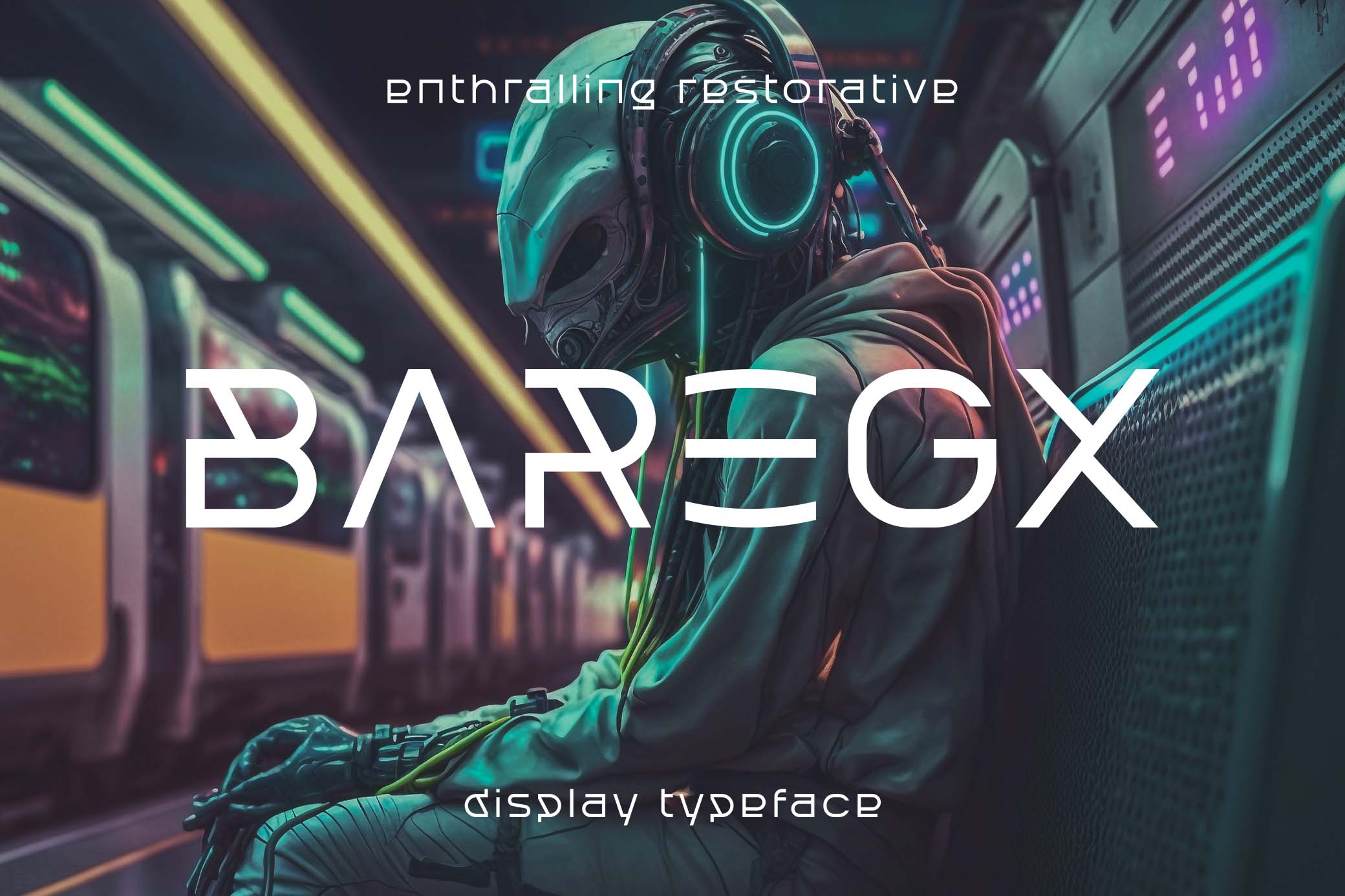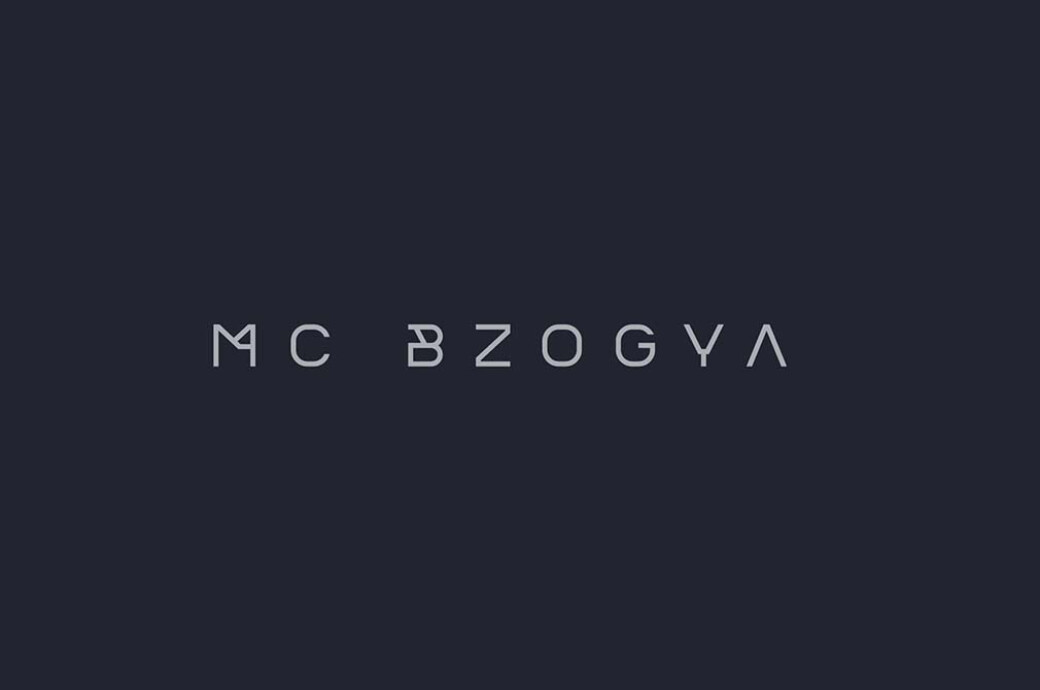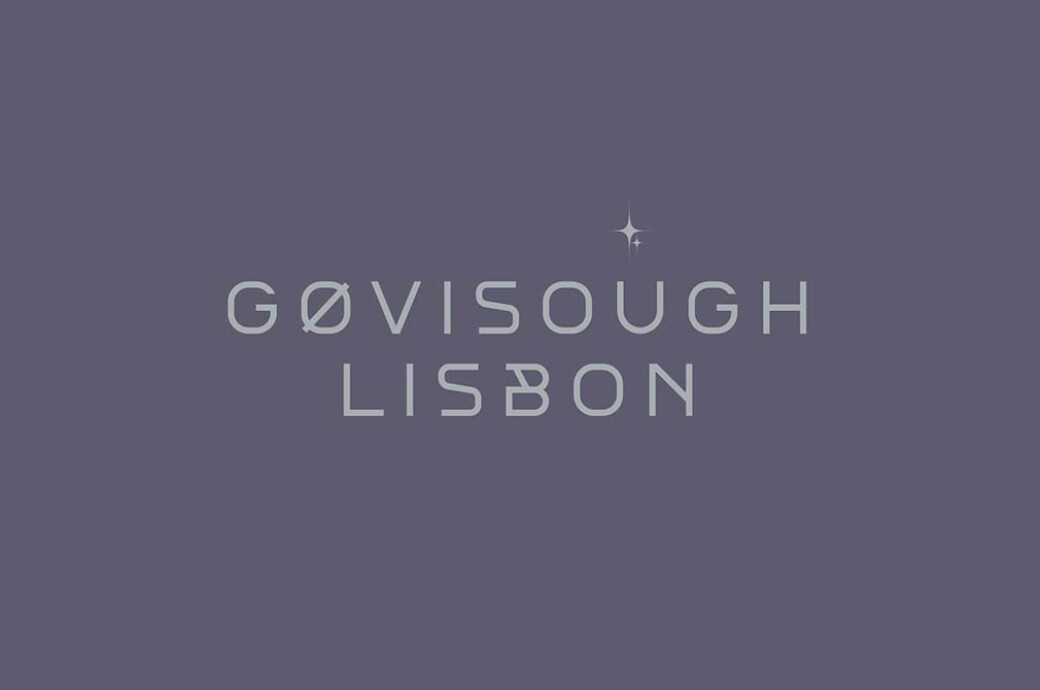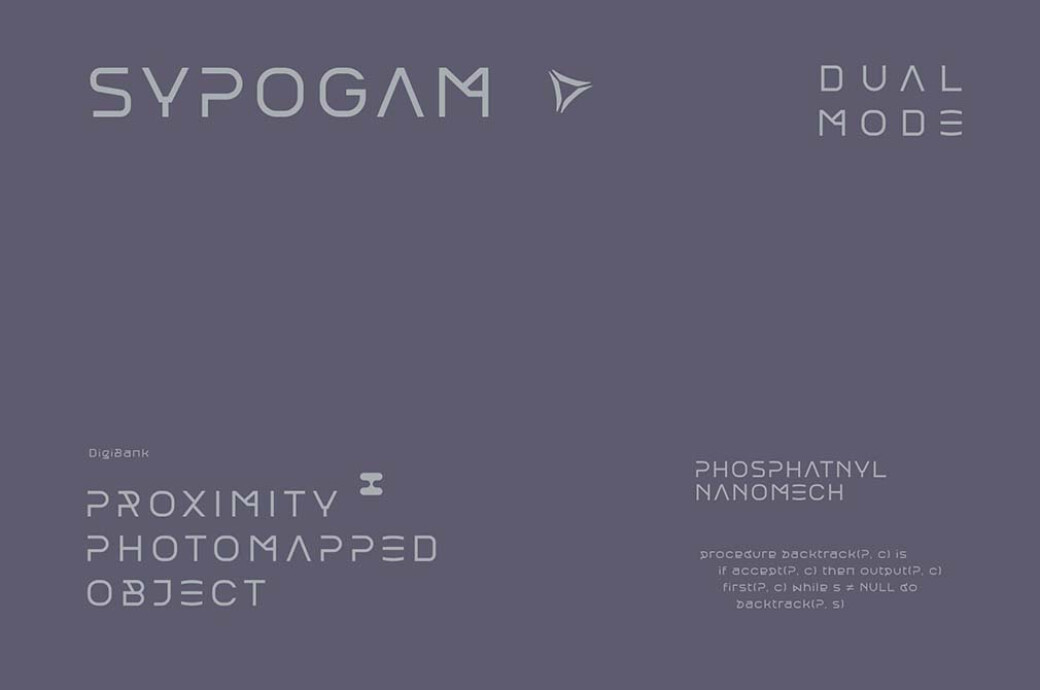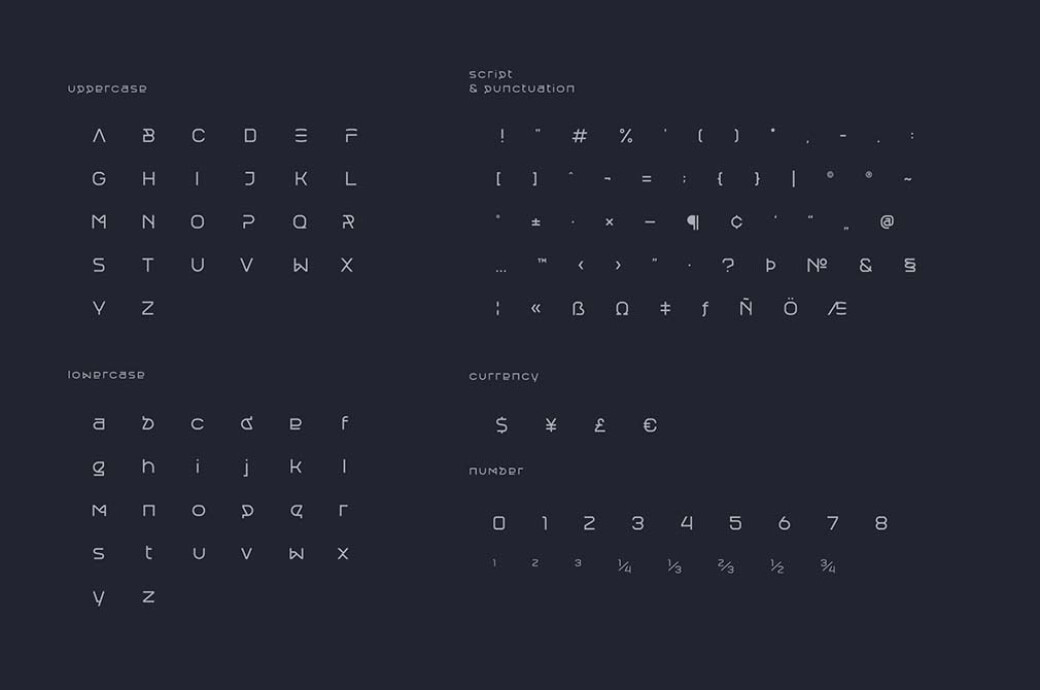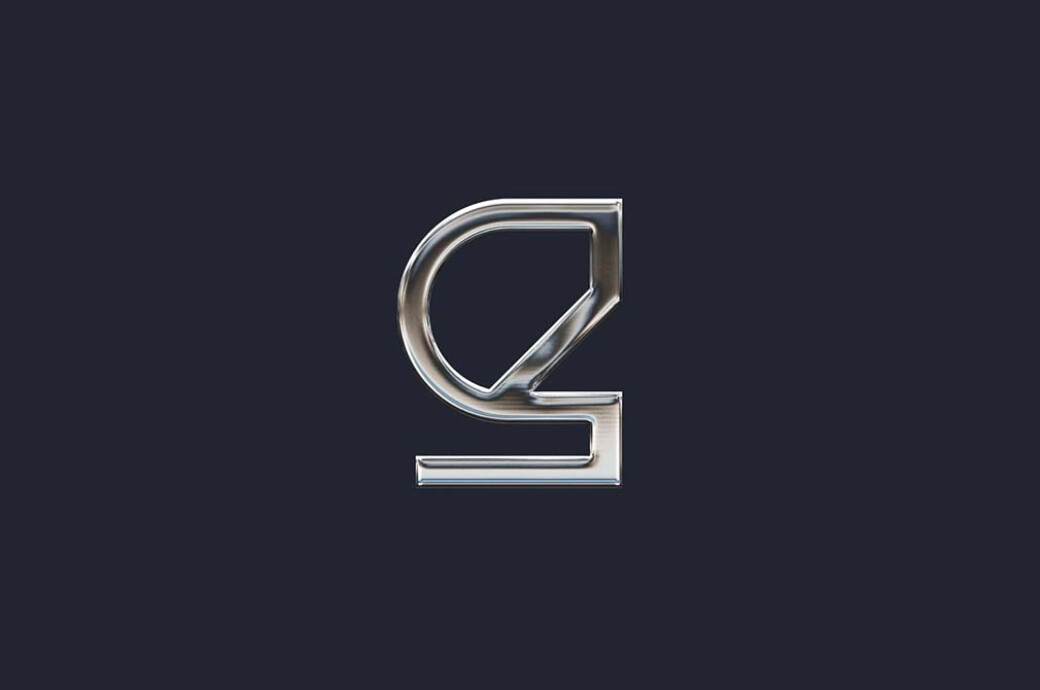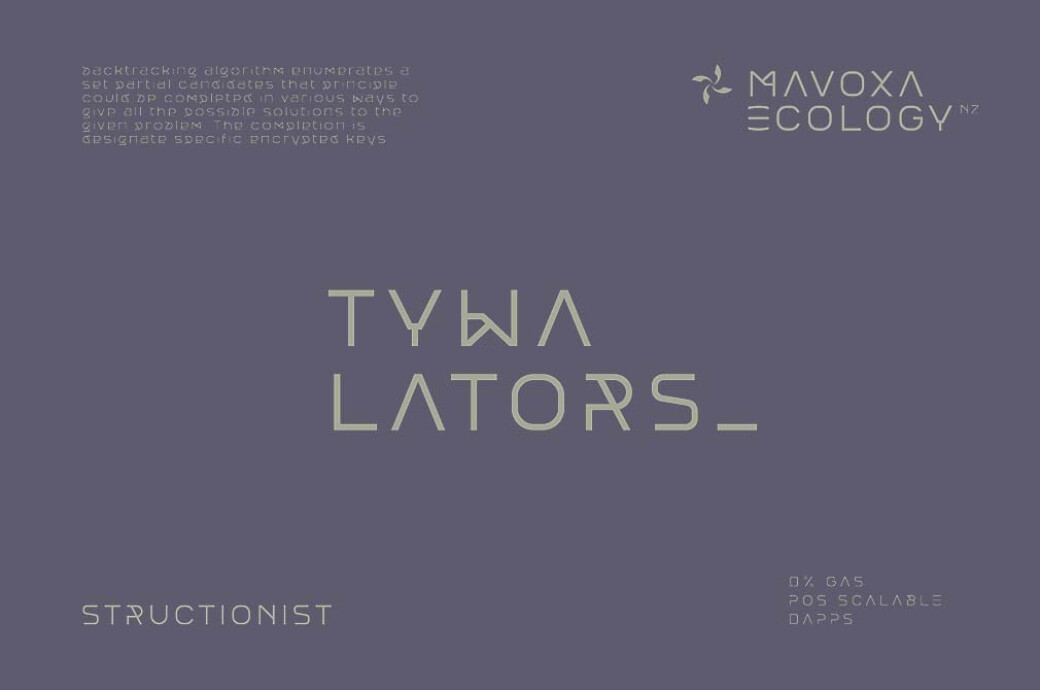
Baregx Futuristic Font
A font chosen (and approved) by the aliens themselves is the best option for futuristic designs. Indeed, would you doubt their expertise?Baregx is everything quality futuristic typography can boast: it's a monolinear sans serif with a non-conventional glyphs appearance (probably elaborated by Predator or ALF(unlikely)). And it's even more, as the standard set of characters is complemented by multilingual support, numbers, and punctuation. You can use Baregx for any project, of course, but the best use will be a logo on the board of your spaceship or a branding design for a sci-fi movie.